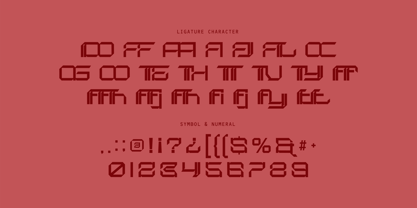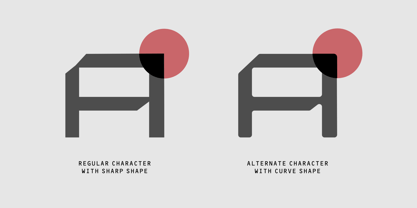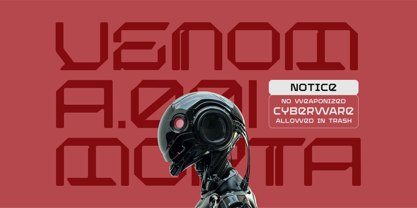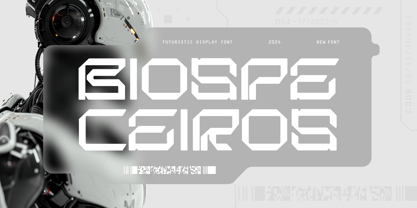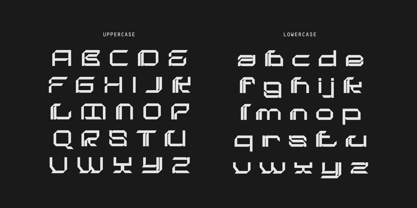
Biospe Ceiros
by Imoodev
The Biospe Ceiros Font Family was designed by Aulia Savira Putri and published by Imoodev. Biospe Ceiros contains 1 styles.
Biospe Ceiros is a futuristic and geometric display font whose characters are structured with bold, angular lines and shapes, giving it a high-tech, sci-fi aesthetic. The sharp edges and unique letterforms emphasize innovation and forward-thinking design. Biospe Ceiros includes unique cutout creating a sense of fragmentation and modernity. It is well-suited for technological, futuristic, robotic, or dystopian themes, such as posters, branding, or game designs. This font excels in creating visual impact but is better suited for titles or headlines.
Designers: Aulia Savira Putri
Publisher: Imoodev
Foundry: Imoodev
Design Owner: Imoodev